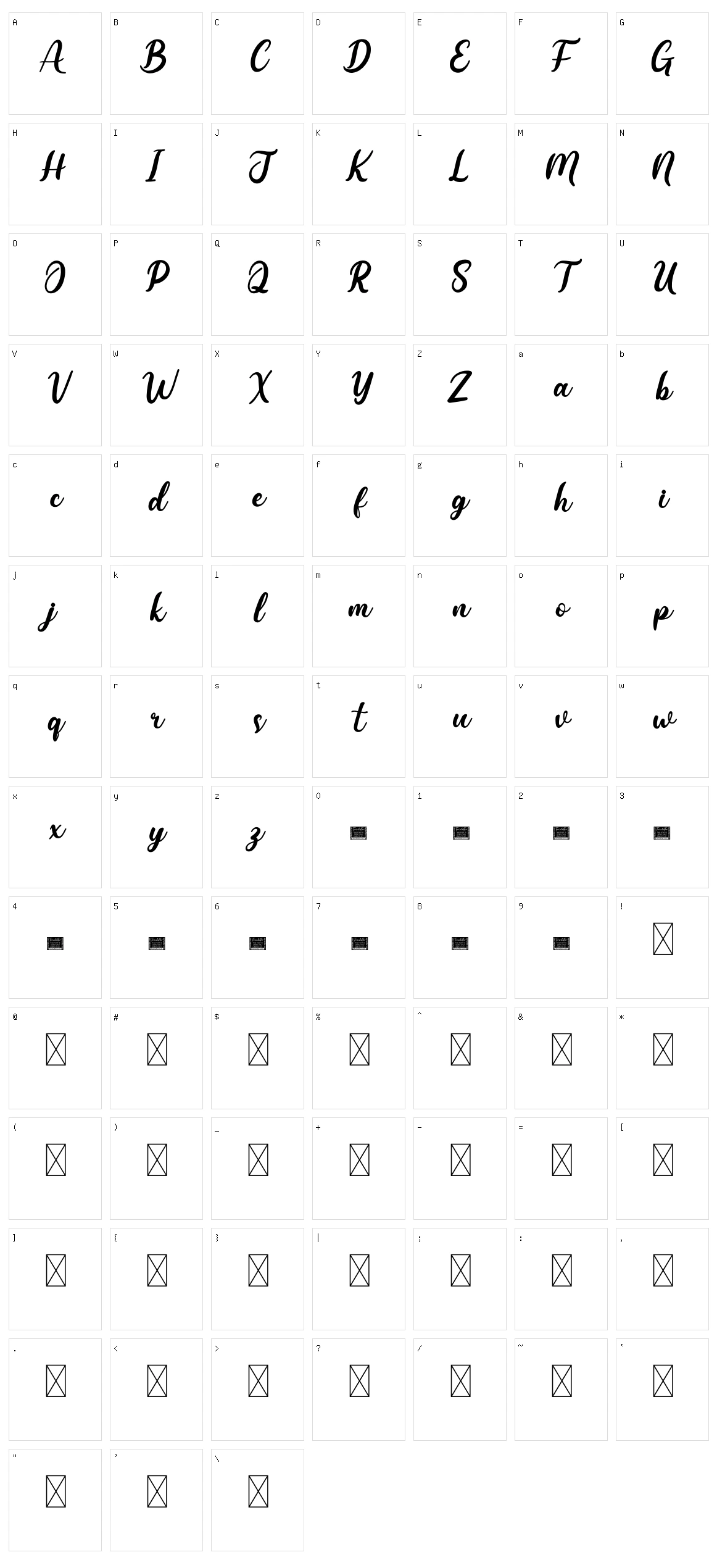
The free font Coffistylove is carefully designed by twinletter, showcasing a thoughtful balance of creativity and usability and falls under the Script font style. When you download the ZIP file, it contains only 52.6 KB of font files, making it lightweight and quick to download. Please review the license details below to understand permitted usage and distribution rights. If license information is not available, we recommend using this font for personal projects only or contacting the author directly for commercial usage permissions.